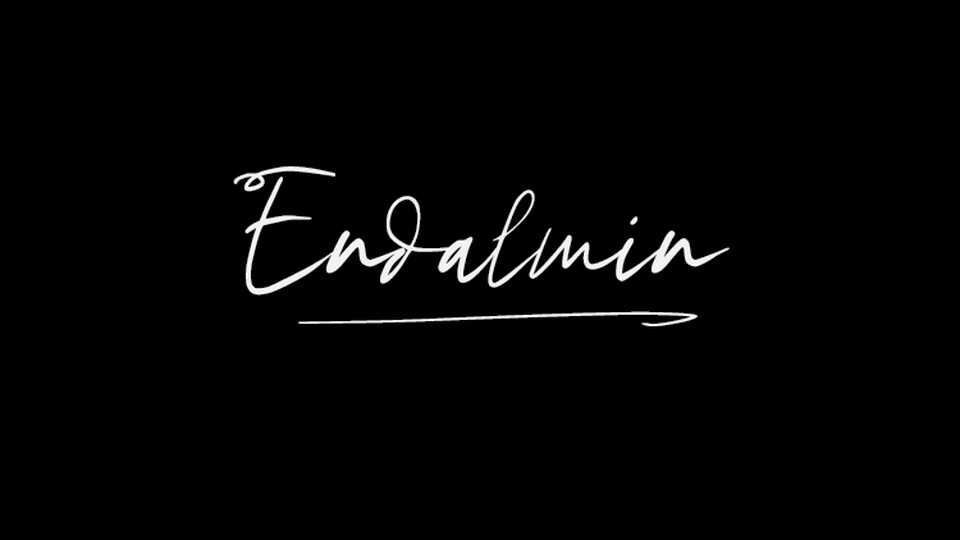
Download Endalmin font, the typeface that captures the effortless elegance of a handwritten signature. Endalmin font is all about creating designs that exude a sense of sophistication and personal touch.